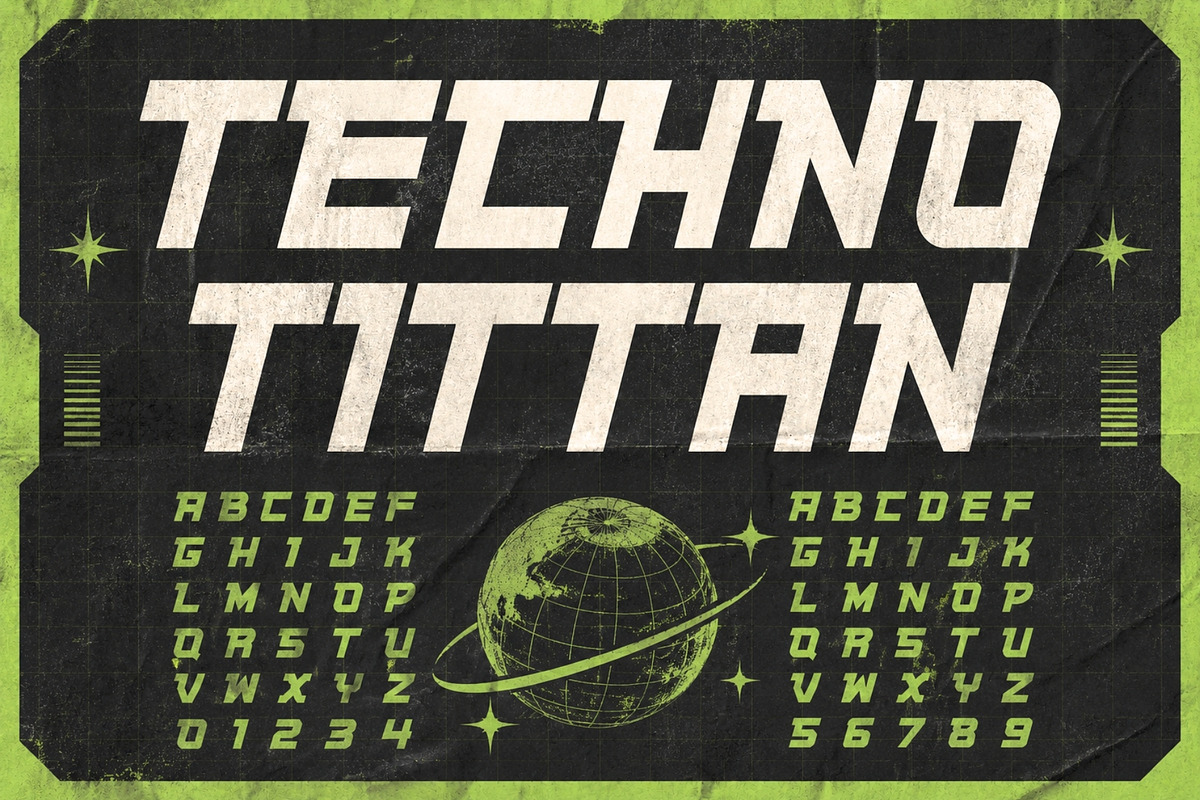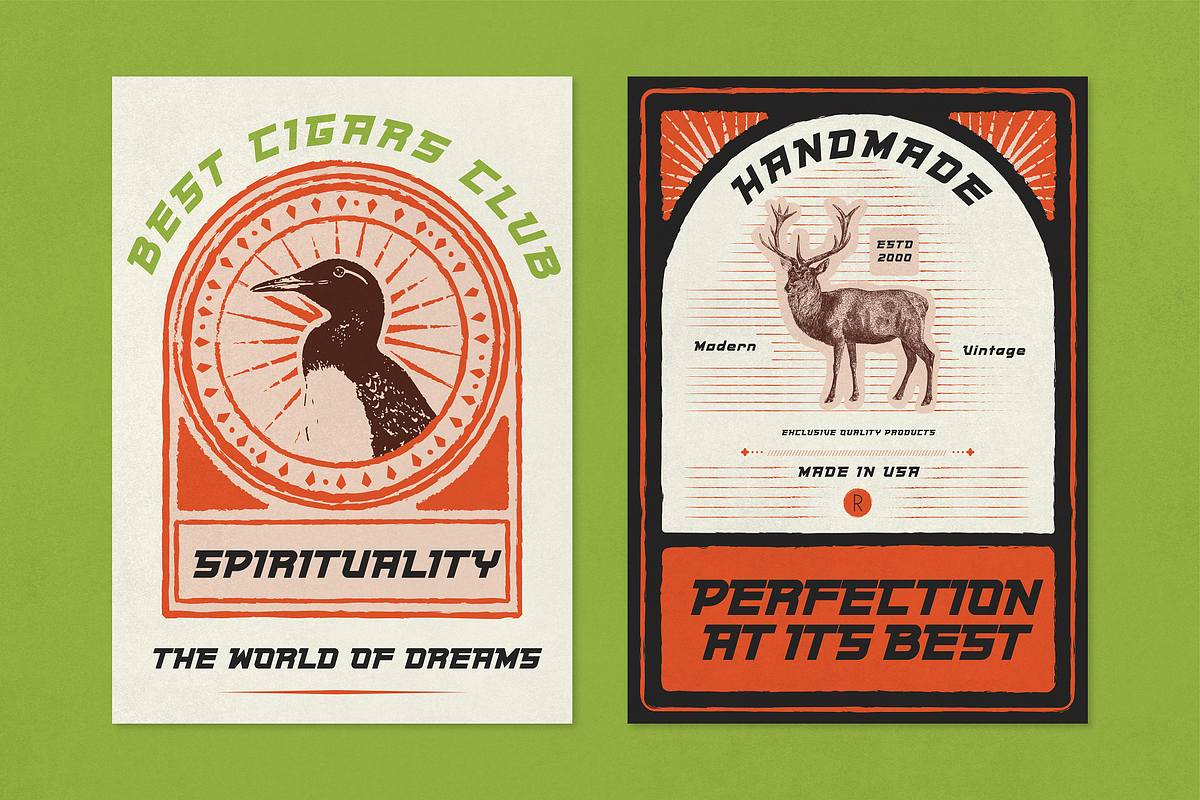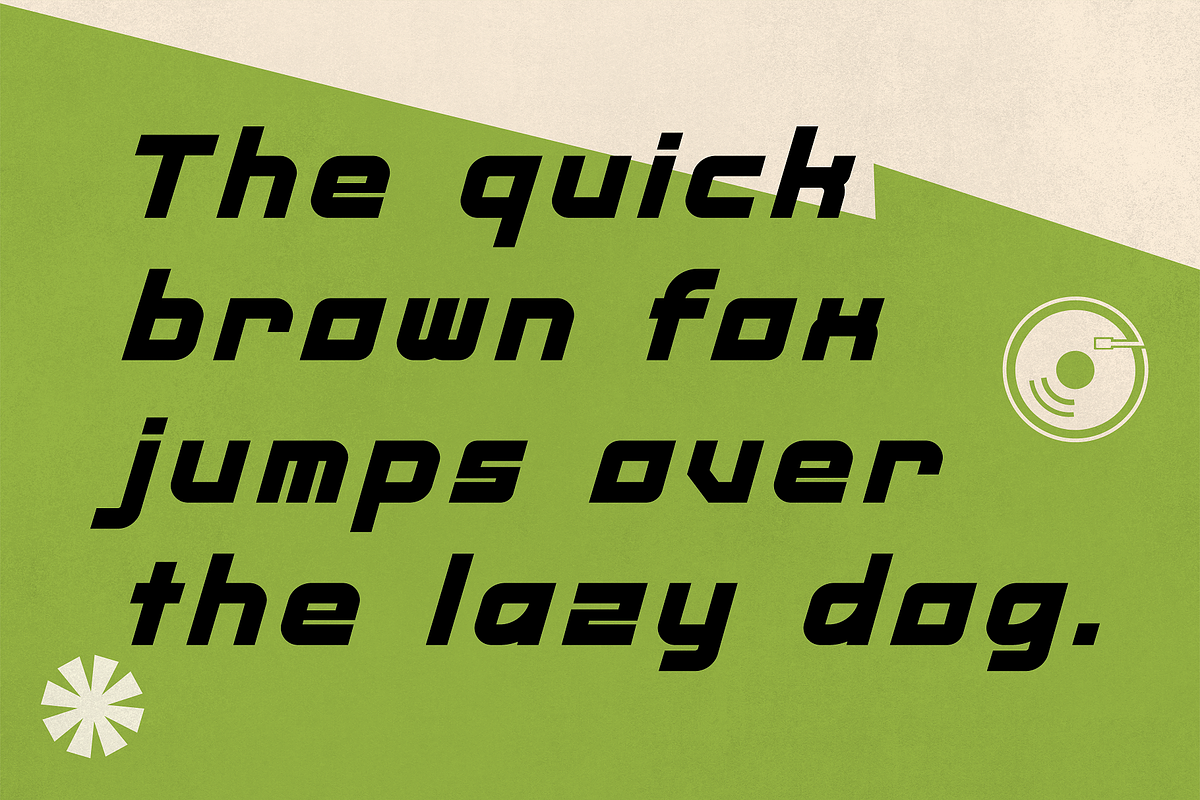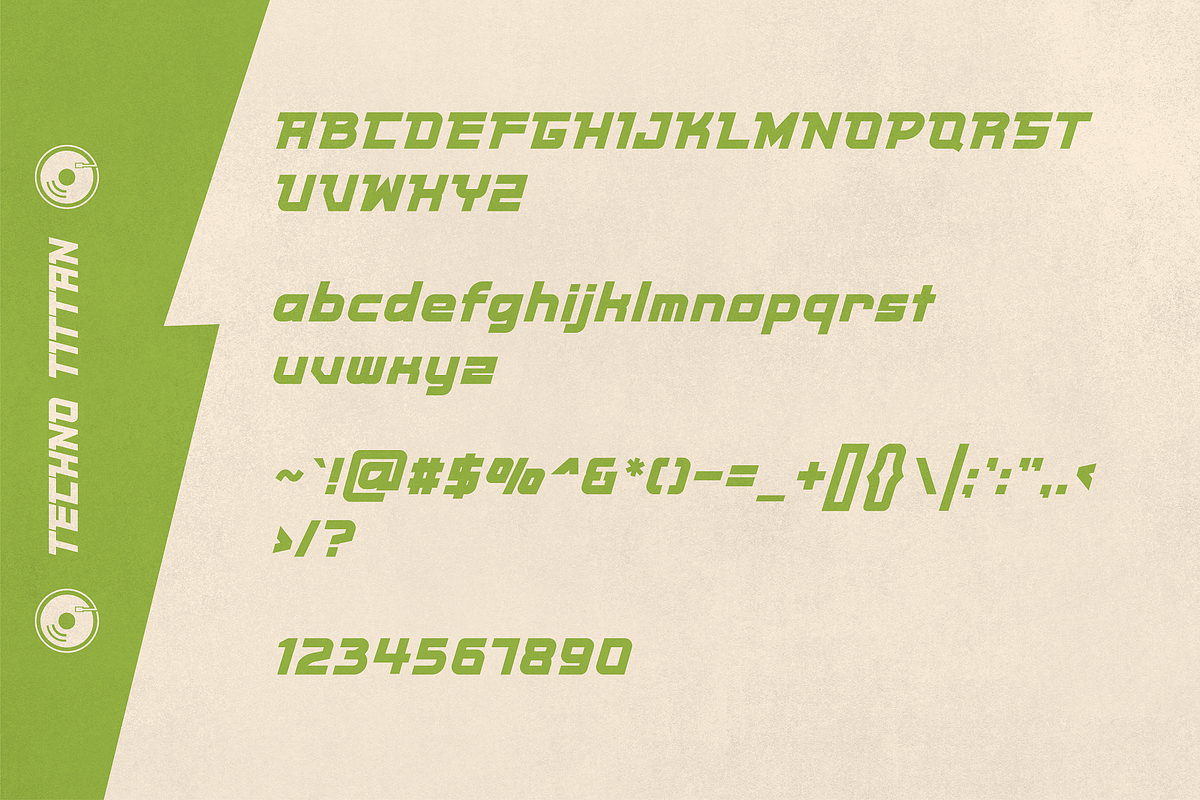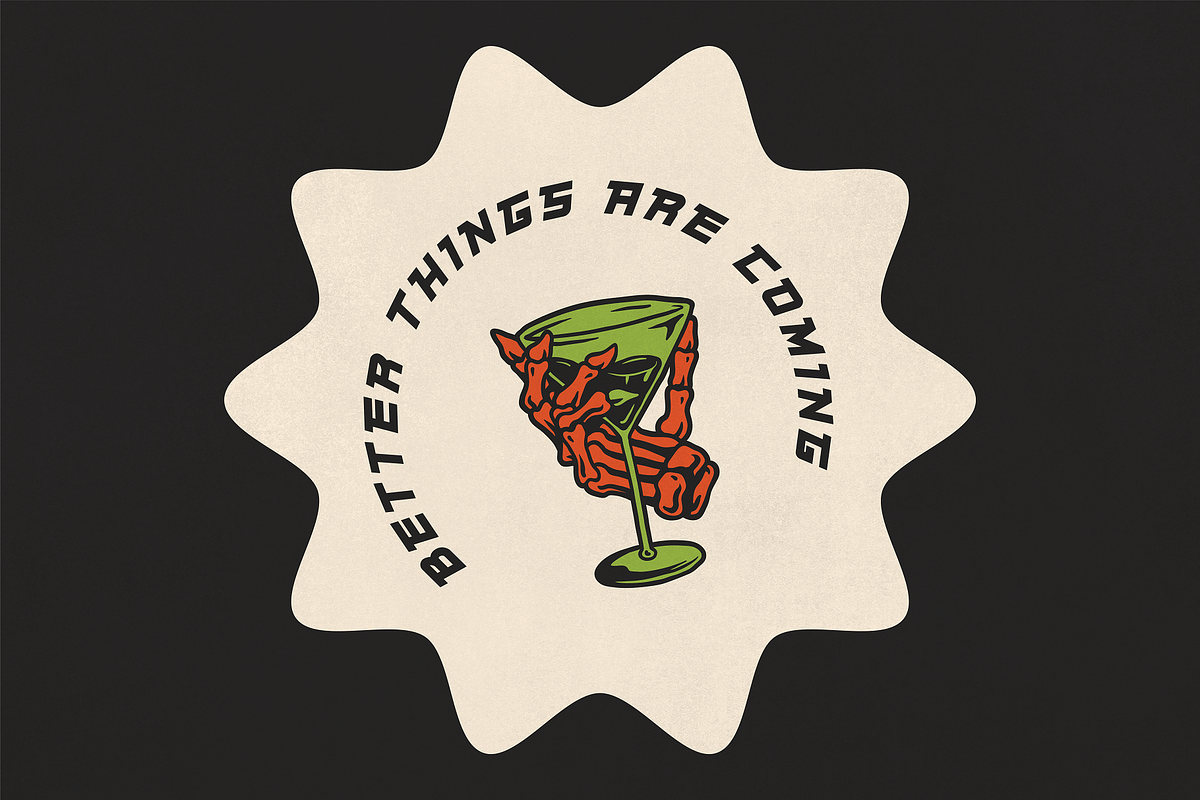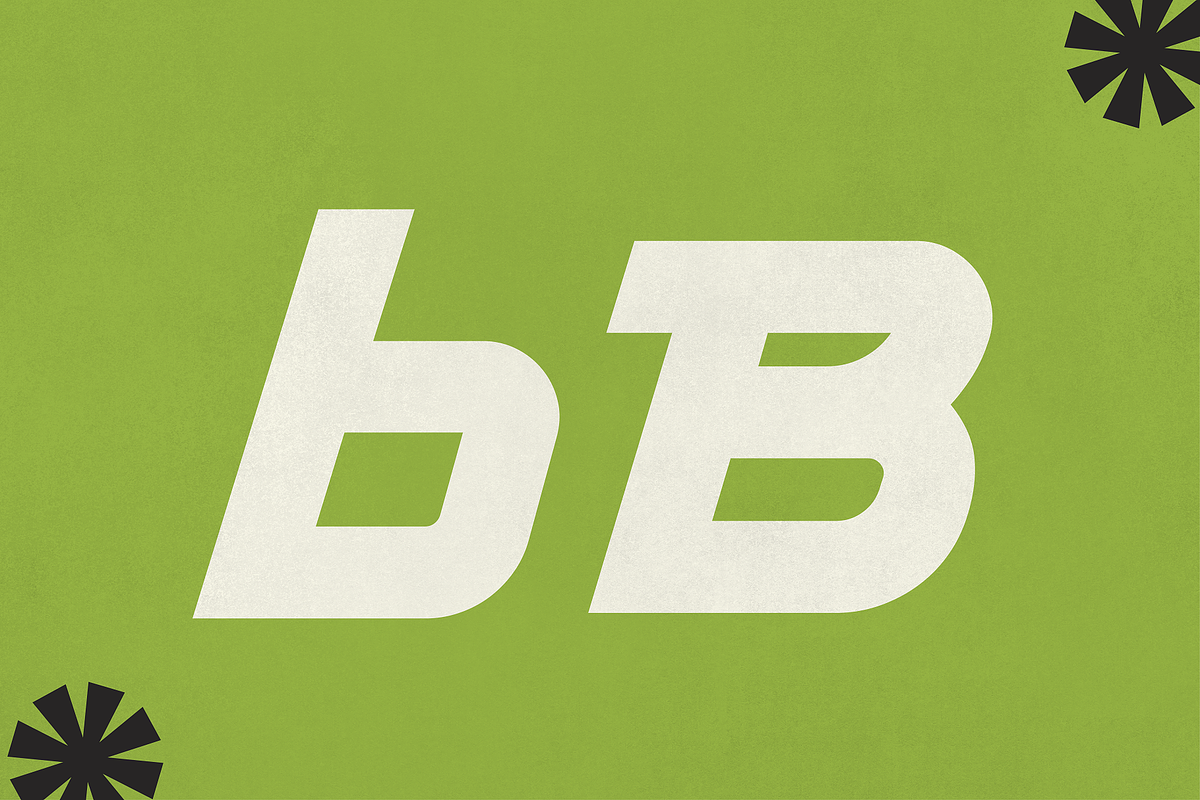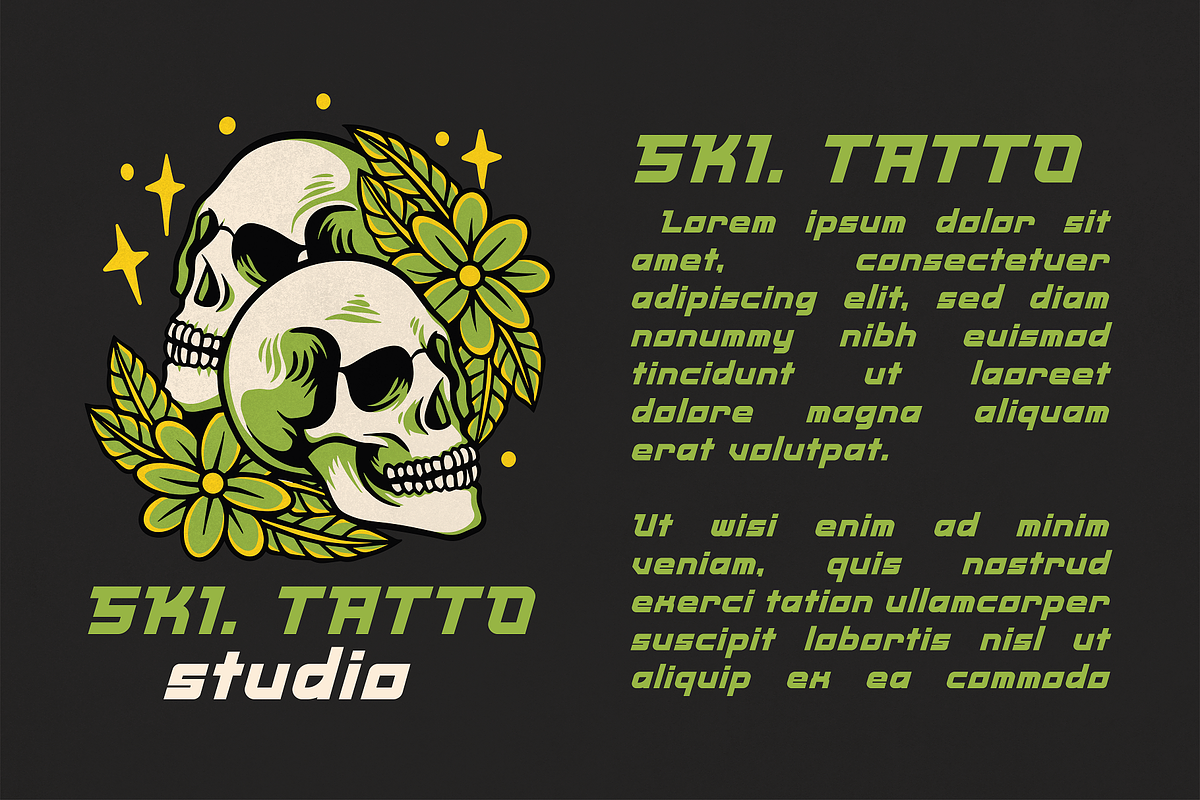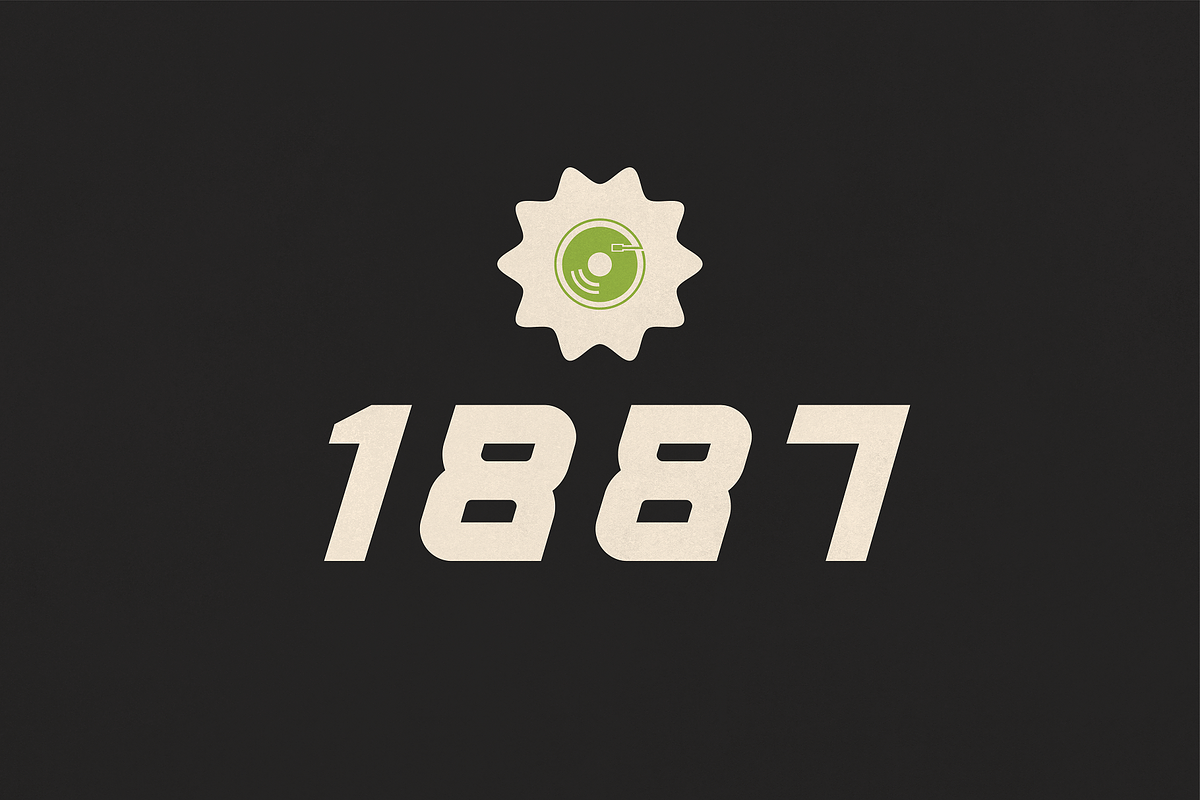
Techno Titan
Techno Titan is a commanding font that exudes strength and power. With a vintage and classic design aesthetic, it is a perfect choice for projects that require a bold and striking look. The letters are sleek and precise, giving off a futuristic vibe that is perfect for modern designs.
The unique blend of sharp edges and smooth curves creates a delicious design aesthetic that is sure to catch the eye. Techno Titan is the ideal font for anyone looking to make a bold statement with their typography.